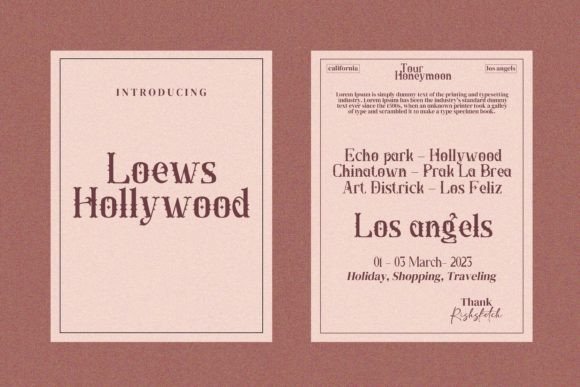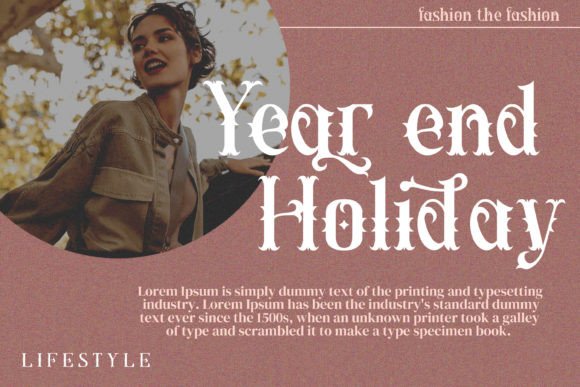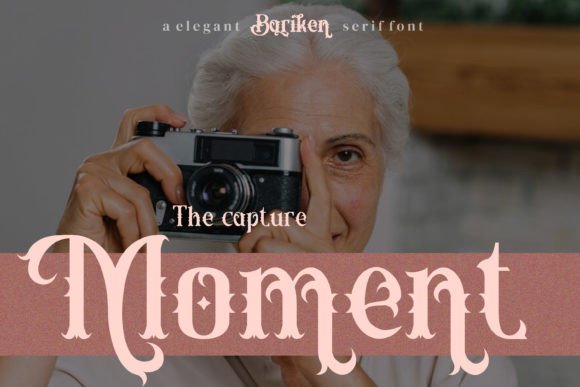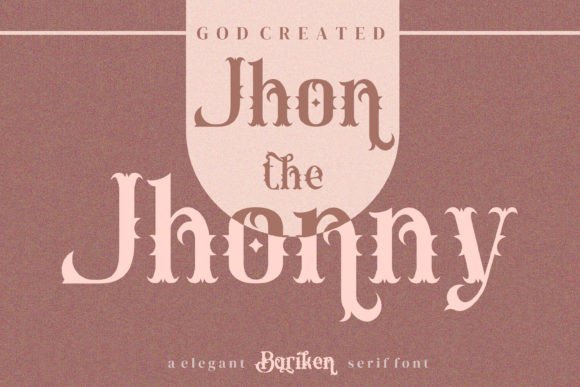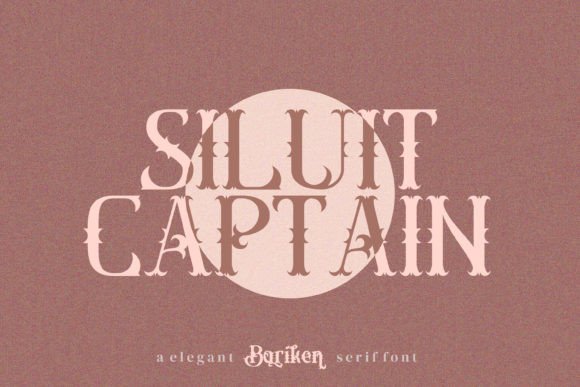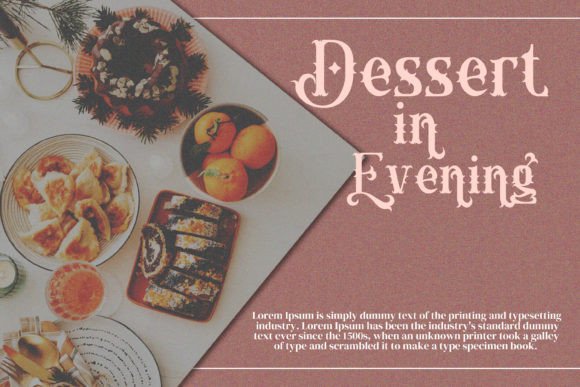
Discover the Elegance of Bariken Font: Elevate Your Designs with Versatility
Are you on the hunt for a font that exudes charm and elegance, perfect for crafting stunning wedding invitations, beautiful stationery art, and eye-catching social media posts? Look no further than the Bariken Font. This incredibly versatile serif font is designed to capture the hearts of designers and crafters alike, offering a wide range of creative possibilities. In this article, we’ll dive into the world of Bariken Font, exploring its features, uses, and the magic it can bring to your designs.
The Charm of Bariken Font
Bariken Font is a masterpiece of typographic design, boasting a unique blend of classic serif elements and modern flair. Its elegant lines and refined details make it an ideal choice for projects that demand sophistication and poise. Whether you’re working on a wedding invitation, a piece of stationery art, or a social media post, Bariken Font is sure to add a touch of luxury and refinement.
One of the standout features of Bariken Font is its incredible versatility. This font is not limited to a specific style or medium; instead, it can be used across a wide range of applications. From formal wedding invitations and elegant stationery to engaging social media posts and captivating blog headers, Bariken Font adapts seamlessly to any design need. Its flexibility makes it an excellent addition to any designer’s toolkit, offering endless possibilities for creative expression.
For those in the business of creating wedding invitations, stationery, and event materials, Bariken Font is a game-changer. Its sophisticated and romantic feel makes it perfect for wedding designs, effortlessly conveying the elegance and joy of the occasion. Additionally, its clarity and readability ensure that your messages are conveyed with precision, making it an excellent choice for event announcements, save-the-date cards, and more.
Elevate Your Digital Content
In the digital realm, standing out on social media platforms and blogs can be a challenge. Bariken Font offers a solution, bringing a level of sophistication and elegance to your digital content. Use it to create stunning blog headers, captivating social media posts, and engaging email newsletters that grab attention and leave a lasting impression. Its unique style will set your content apart, making it more noticeable in a crowded digital landscape.
Why Designers and Crafters Love Bariken Font
Designers and crafters adore Bariken Font for its unique blend of elegance and versatility. Here are a few reasons why:
- Ease of Use: Bariken Font is incredibly easy to use, even for those who are new to font design. Its clear and legible style ensures that your designs look professional and polished.
- Customization: With Bariken Font, you have the freedom to experiment with various design elements, from color schemes to textures, allowing you to put your personal touch on your creations.
Bariken Font is more than just a serif font; it’s a design companion that offers elegance, versatility, and endless creative possibilities. Whether you’re crafting beautiful wedding invitations, stunning stationery art, or engaging social media posts, Bariken Font is the perfect choice. Its charm and sophistication will elevate your designs, making them stand out in a crowded world. So why wait? Discover the magic of Bariken Font today and take your designs to new heights.